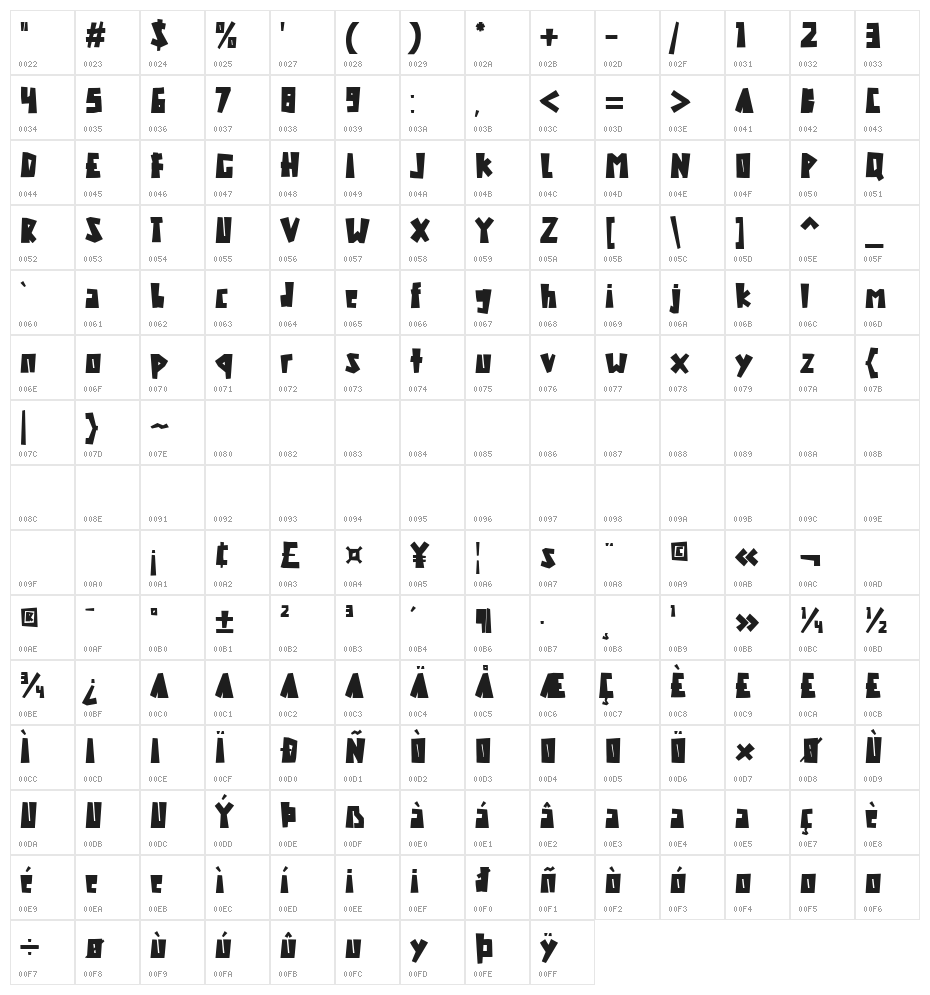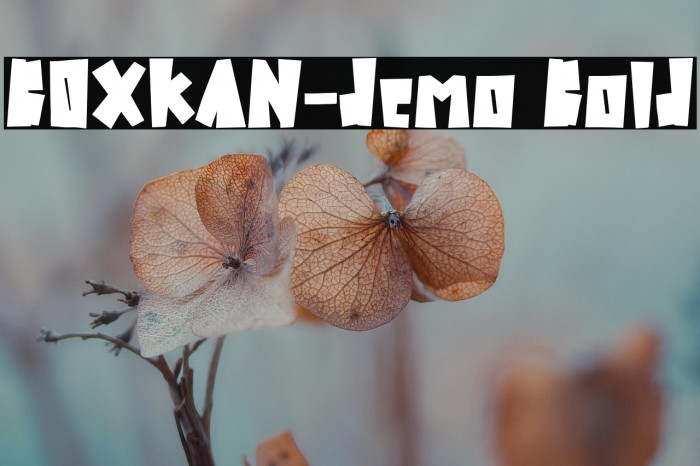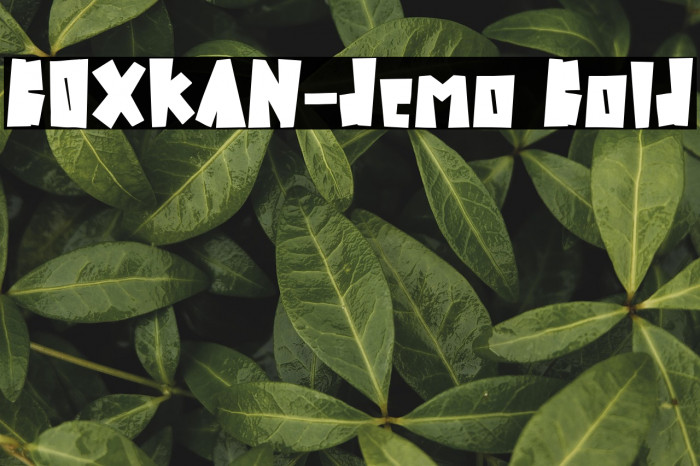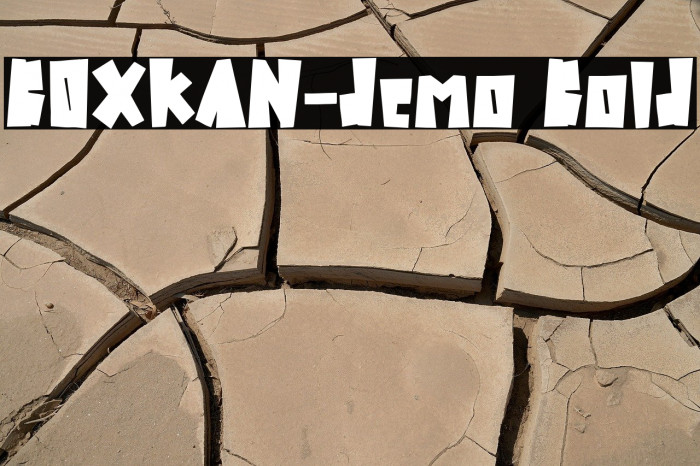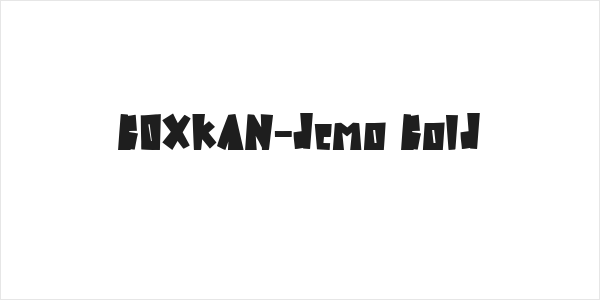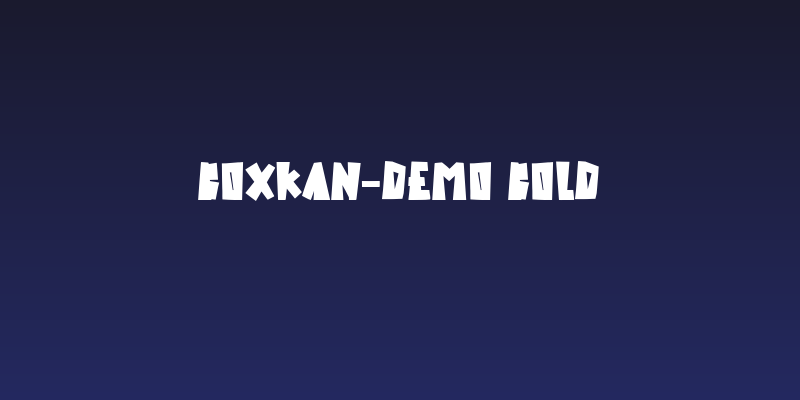
BOXKAN-demo Bold Font
BOXKAN-demo Bold Description
This font features a bold and dynamic design with a distinctly angular and geometric style. The characters are crafted with sharp edges and varying line thicknesses, creating a striking and impactful appearance. The uppercase and lowercase letters maintain a consistent aesthetic, with a playful yet assertive presence. Numbers and special characters are equally bold, enhancing the font's overall cohesiveness. This font is ideal for projects that require a strong visual statement, offering a modern and edgy vibe.
| Proposed Projects | Perfect for posters, branding, headlines, and any design needing a bold statement. |